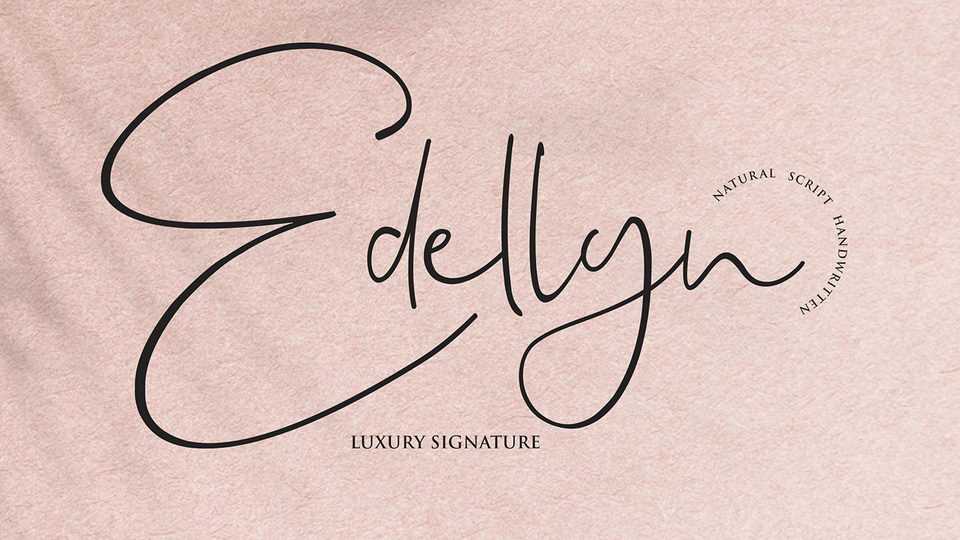
Download Edellyn font, a beautiful signature script with a luxury style. Edellyn can be used for invitation, logos & branding , photography, advertisements, watermark, social media posts and more.
Designer: Girinesia Studio